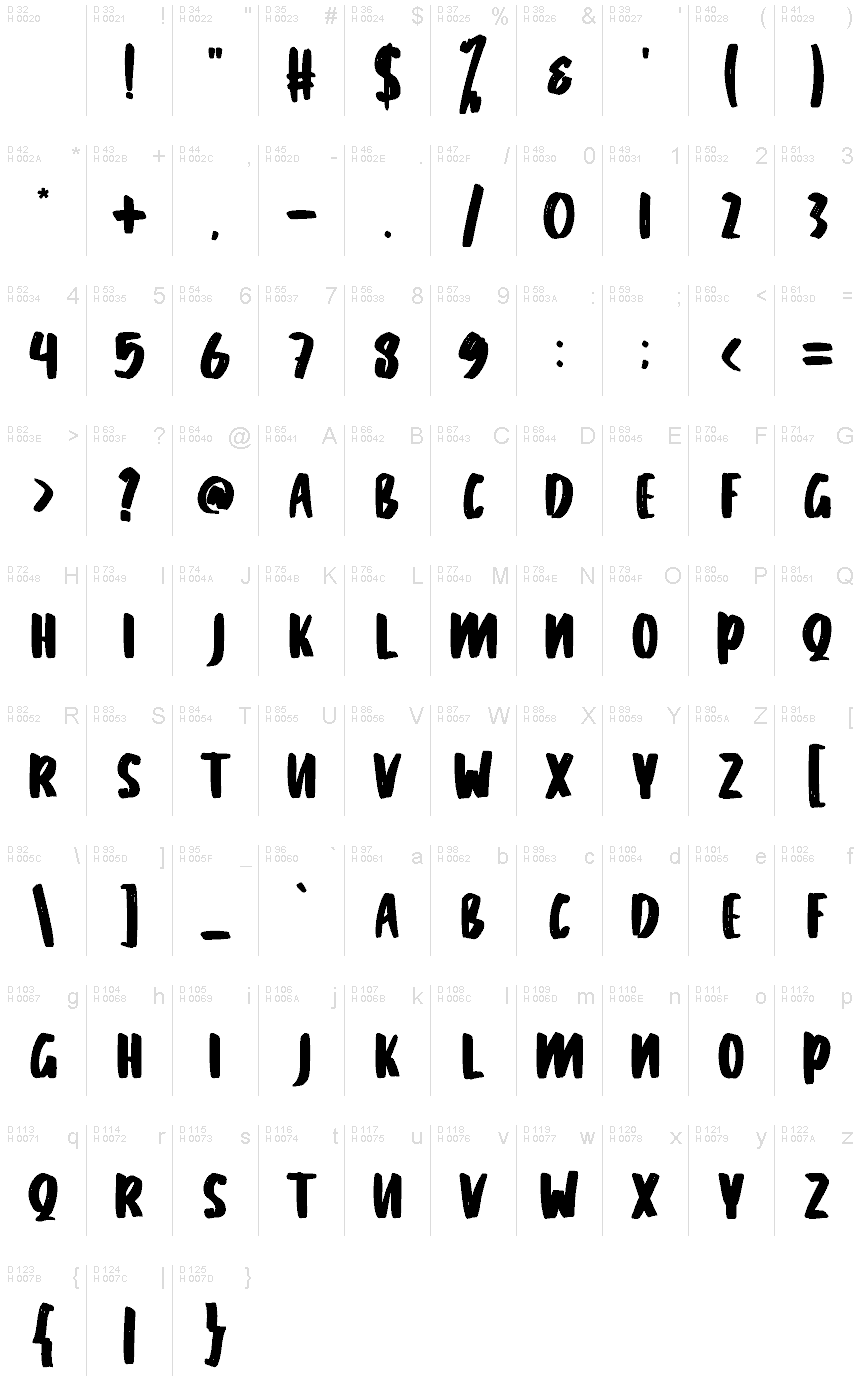
Brilya
Brilya font is a gorgeous and eye-catchy brush typeface designed and published by Skiiller Studio. The letters have a lovely handwritten form that is suitable for branding, aesthetic, and feminine projects. This condensed font has bold characters with hand-drawn slightly irregular textured strokes with some sharp edges as well.
Free for personal use, this artistic flair expressive font can be put in your logo designs, poster headlines, product labels or packaging designs such as boxes or bottles. Furthermore, it can be also great when used on T-shirt apparel print artwork.